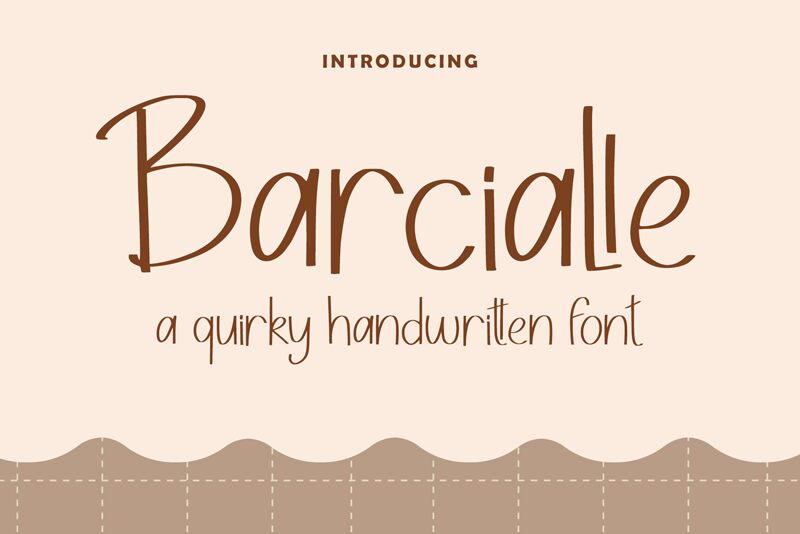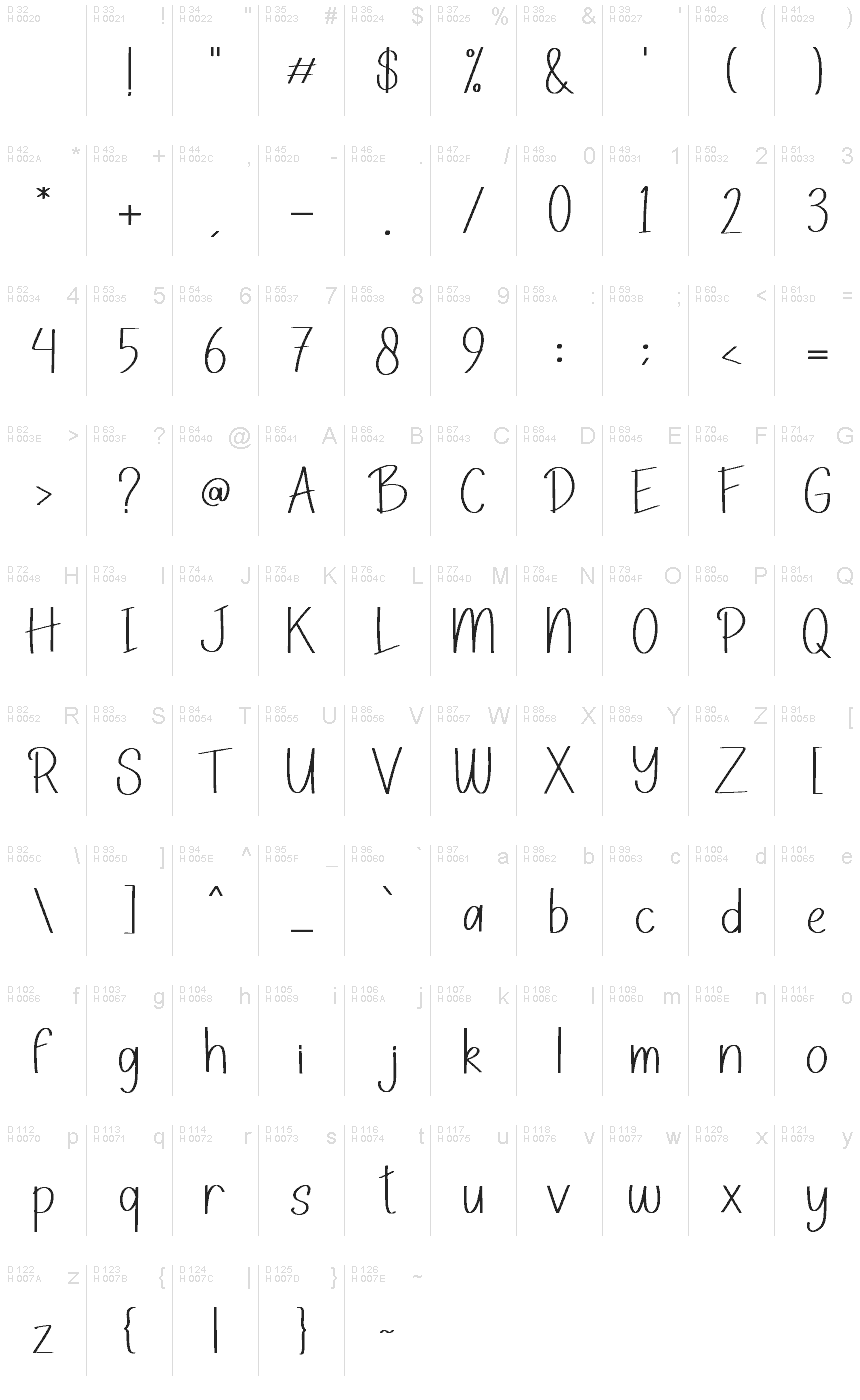
Barcialle
Barcialle font is a casual and modern handwritten typeface from AEN Creative Studio. Presenting youthful energy, it features expressive, artistic letters perfect for contemporary applications in personal branding and creative projects. The font brings uniqueness with its every letter making written messages unforgettable. Regardless of the length of the text, Barcialle always ensures originality within design tasks.
Use this free handwritten font in invitations, business cards, product labels, packaging designs, blog posts, social media covers or headers. The wide range of uses also includes quotes placed on art posters or book covers as well as editorials or advertising campaigns on clothing brands that target younger generations.